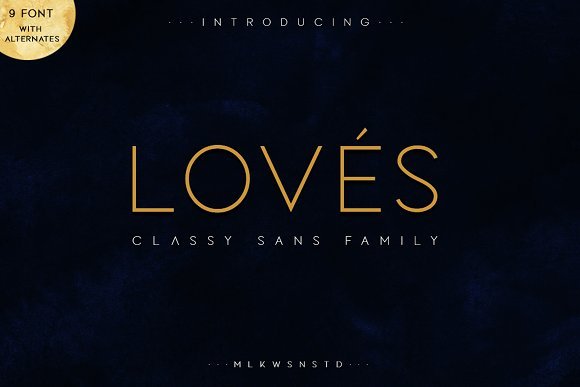
LOVES Sans Font Family
A modern, classy sans typeface. This font pairs well with modern serif, script and handwritten fonts or stand strongly on its own as a heading or editorial font. Introducing LOVES Font. LOVES Classy Sans Family inspired by the famous logo is simple but classy, made with precision and measured. very good for combining your design work with a clear line and a circle with several different weights that are very comfortable in the design area you are easy to read and as a title on a blog or magazine page
Classy Sans Family Loves has symbols and punctuation and unique alternative letters perfect for logos & branding, photography, invitation, watermark, advertisements,product designs, stationery, wedding designs,label ,product packaging